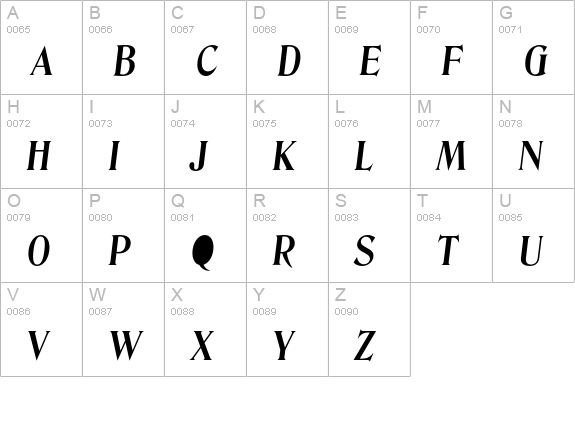
Denver-DemiBoldIta is a versatile and modern typeface that strikes the perfect balance between boldness and elegance. Its distinctive italicized design adds a touch of sophistication to any project, making it ideal for branding, headlines, and editorial designs. The sharp, angular serifs and clean lines of Denver-DemiBoldIta exude confidence and style, making it a go-to choice for designers looking to make a statement. What sets Denver-DemiBoldIta apart is not only its striking aesthetics but also the fact that it is available for free download at FontsMarket.com. This means that you can elevate your designs without breaking the bank, making Denver-DemiBoldIta a valuable addition to any designer's toolkit. Don't miss out on the opportunity to enhance your projects with this eye-catching and versatile font that is just a click away. Download Denver-DemiBoldIta today and see the difference it can make in your creative endeavors.